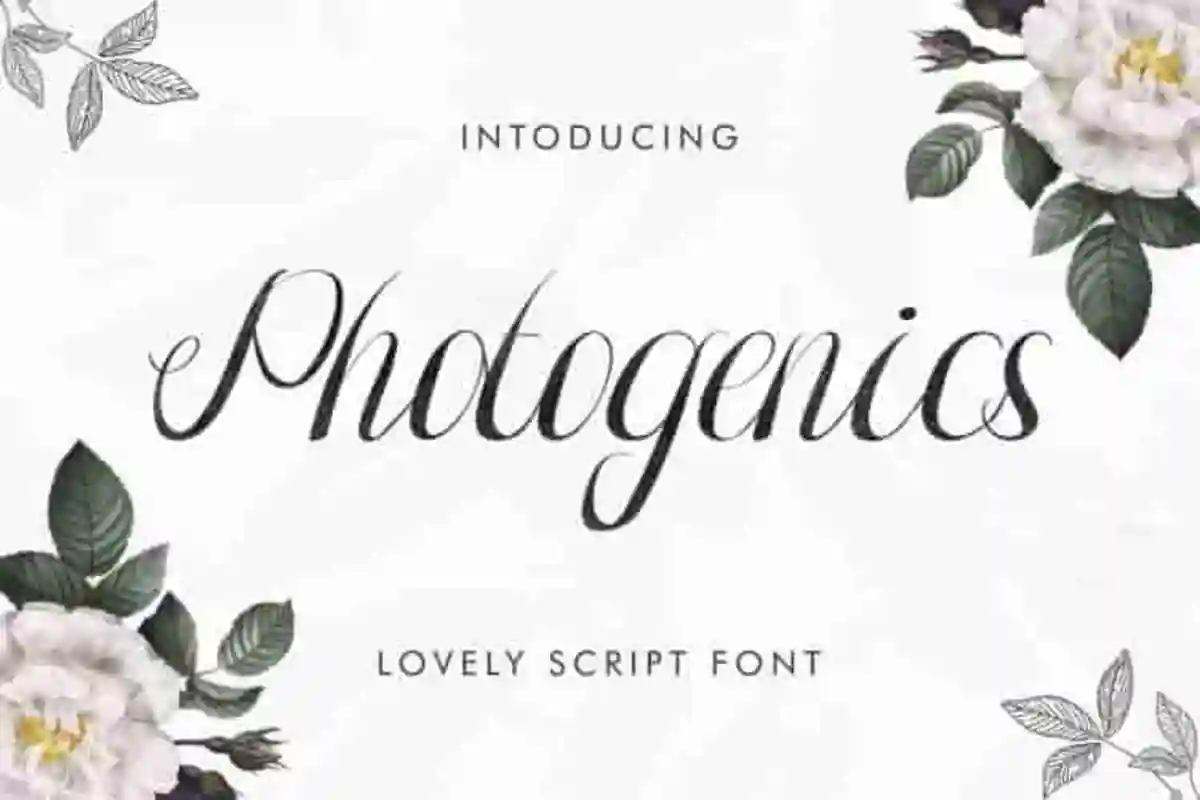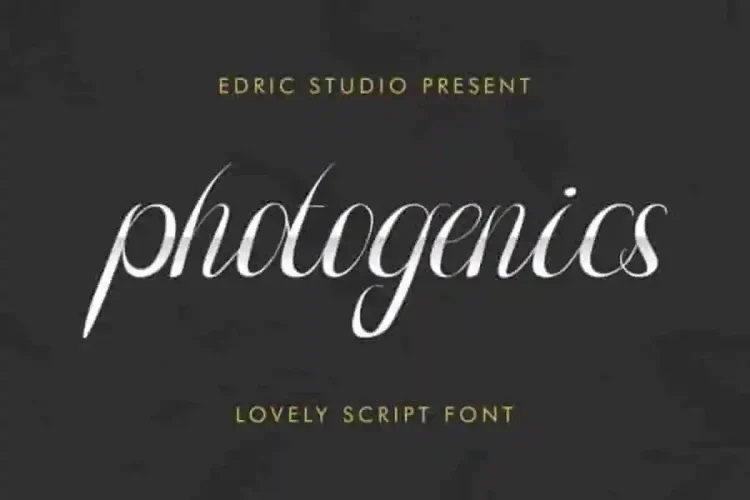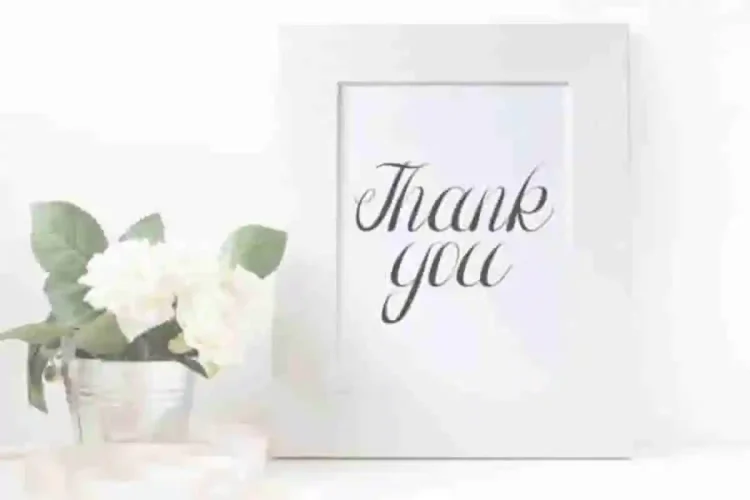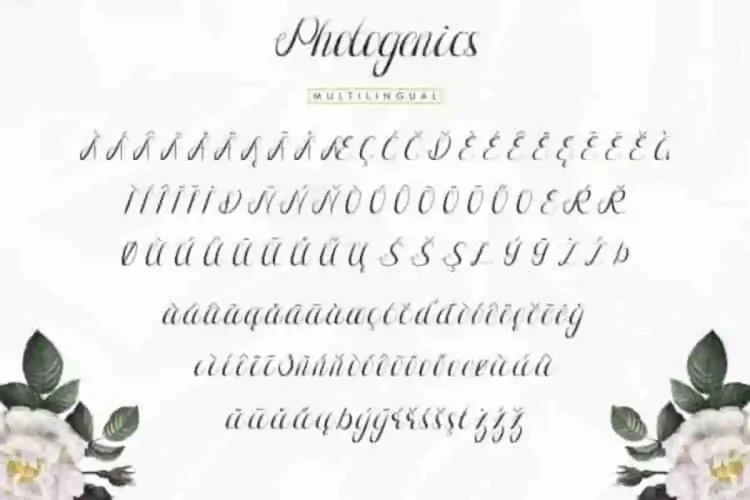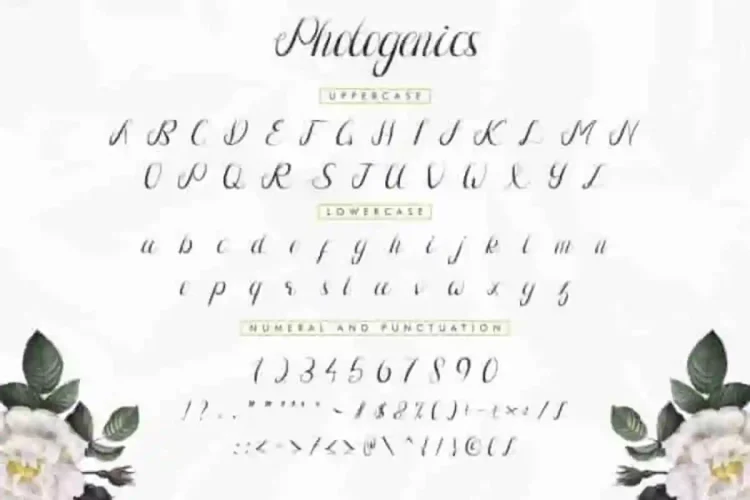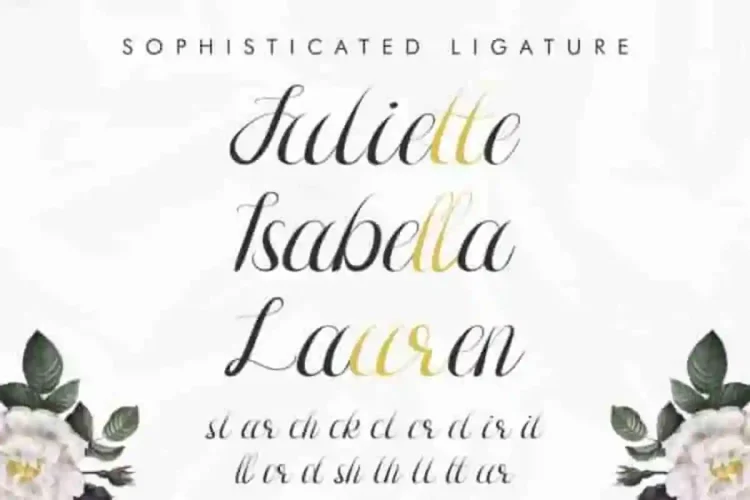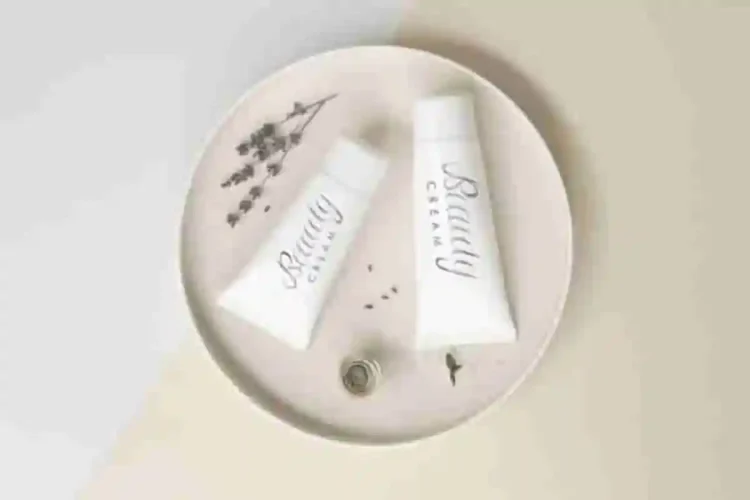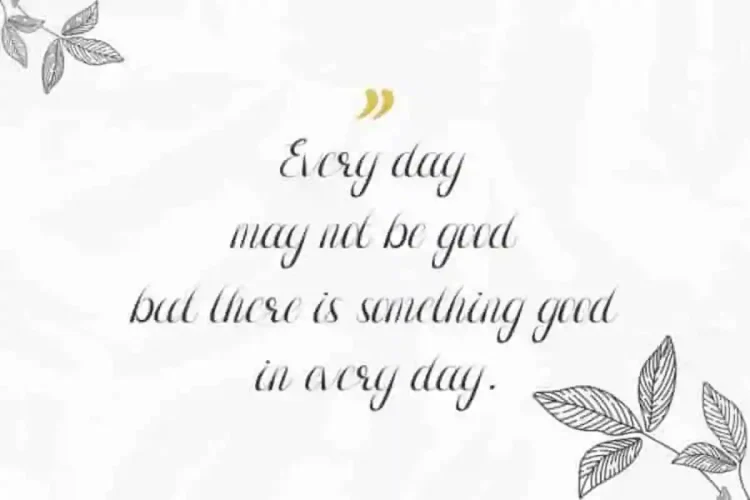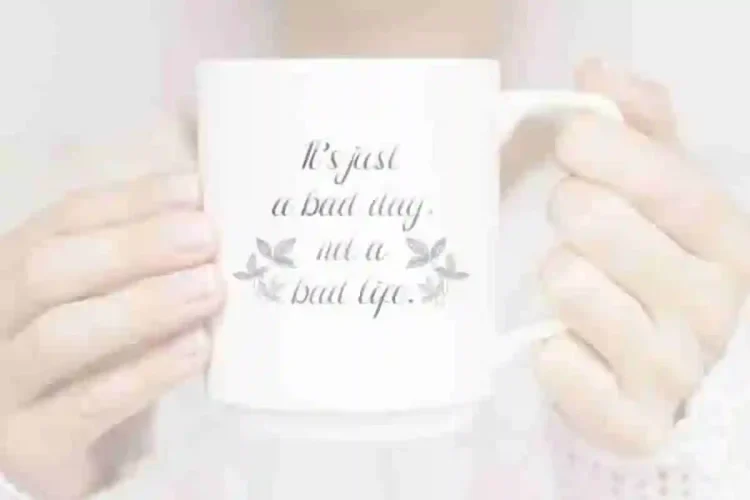
Photogenics Luxury Calligraphy Font
It is us again : EDRIC Studio, Please welcome our latest font : Photogenics Luxury Font
This is a calligraphy handwriting font, handcrafted from our Studio here in Garut and Bandung, Indonesia. The artists/designers of this beautiful tyeface is Widiyanti and Sarah .
Photogenics Luxury Font is an exclusive hand lettering script typeface with brush style. This font has a stunning characters set, perfectly managed with well spaced and kerning.
Photogenics Luxury Font will be great for any projects including : branding, logo, stationery, business card, signage, flyer, brochure etc. Almost all industries will be match for this typeface: wedding, events, real estate, architect, law firm, florist, gardening, makeup artist, travel, hotel, musician etc.